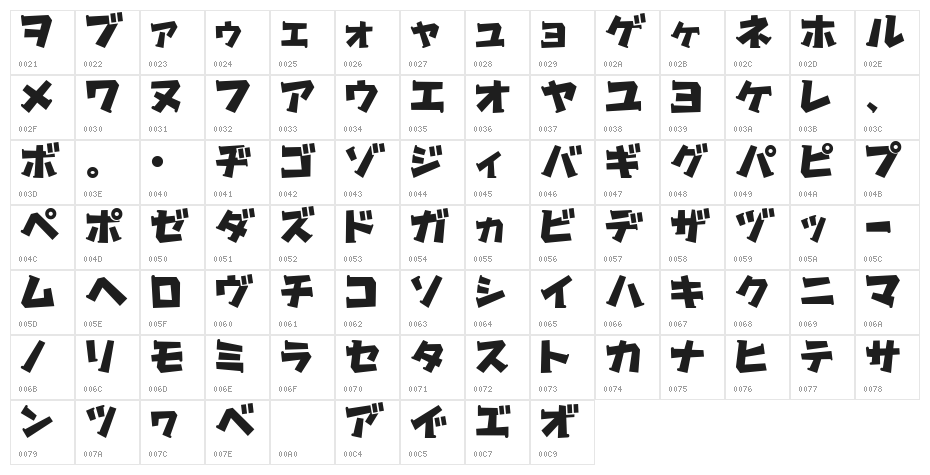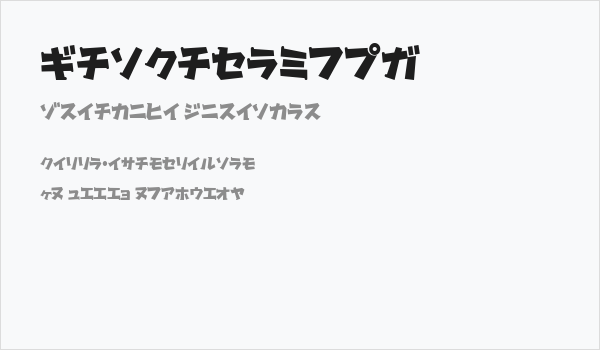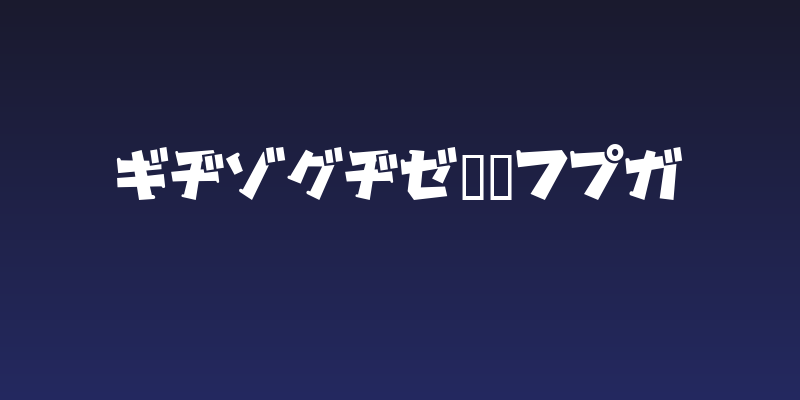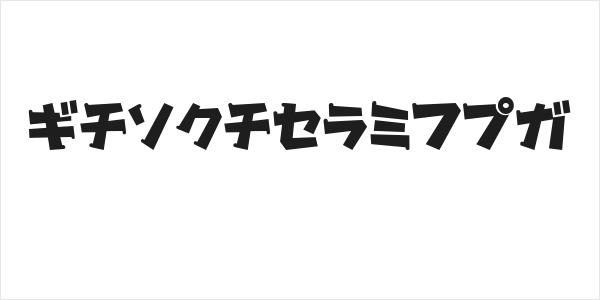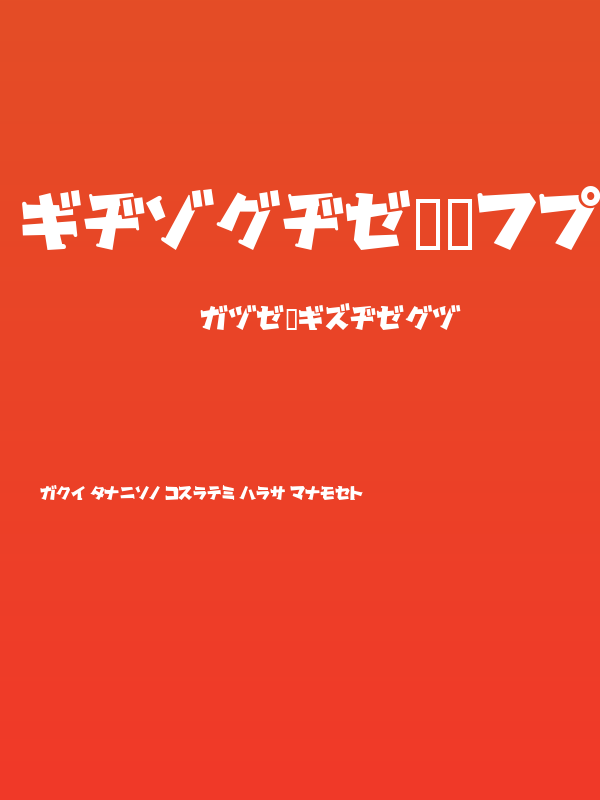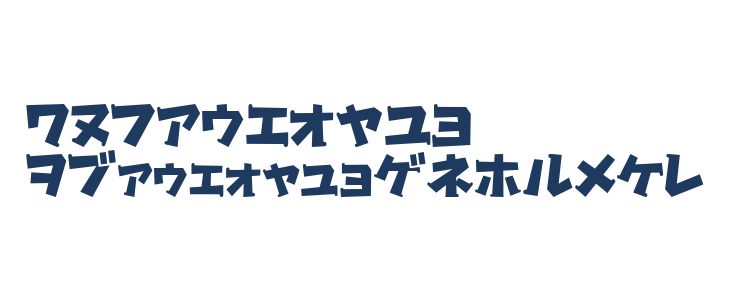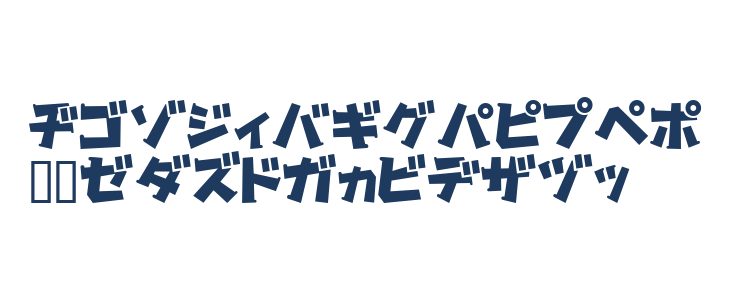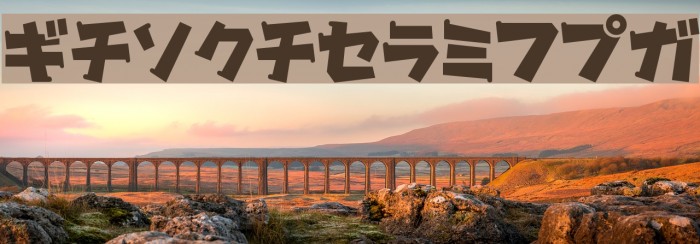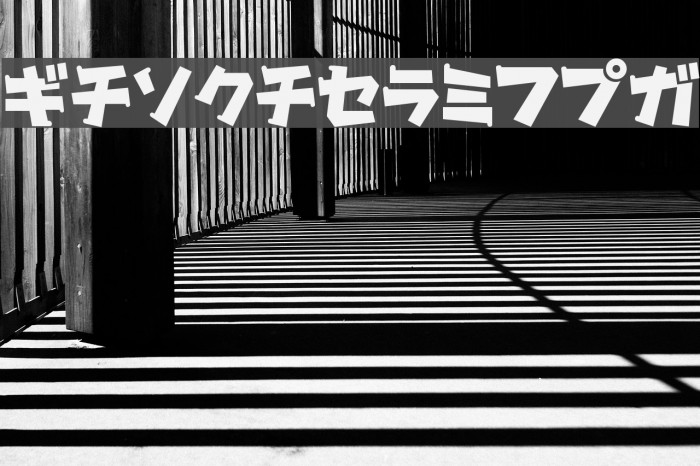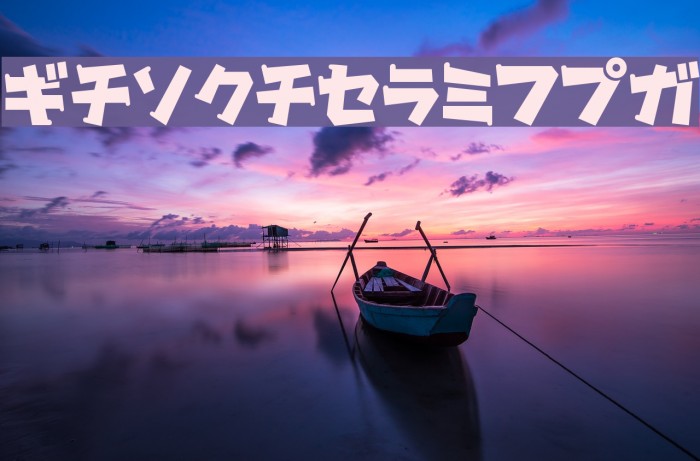
Gachapon2KT Font
Gachapon2KT Description
This font features bold, angular characters with a playful and dynamic appearance. The strokes are thick and consistent, giving it a strong presence. The characters have a slightly irregular baseline, adding to its quirky and energetic style. The font is highly legible, with distinct shapes that make each character stand out. It is well-suited for attention-grabbing designs and can be used to convey a sense of fun and creativity. The overall style is modern and decorative, making it ideal for projects that require a bold and impactful visual statement.
| Overall Style | Modern, Decorative |
| Proposed Projects | Ideal for posters, headlines, branding, and any design that requires a bold and energetic look. |